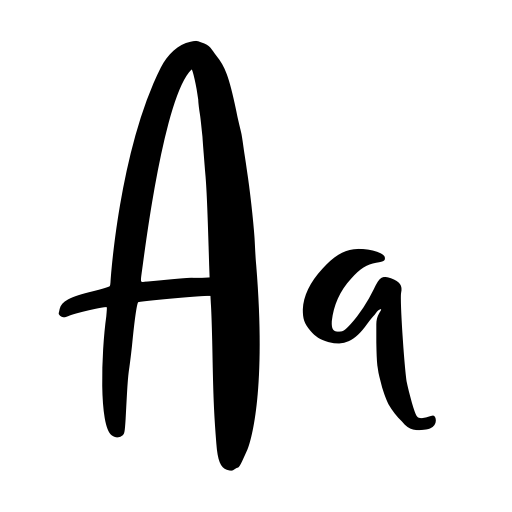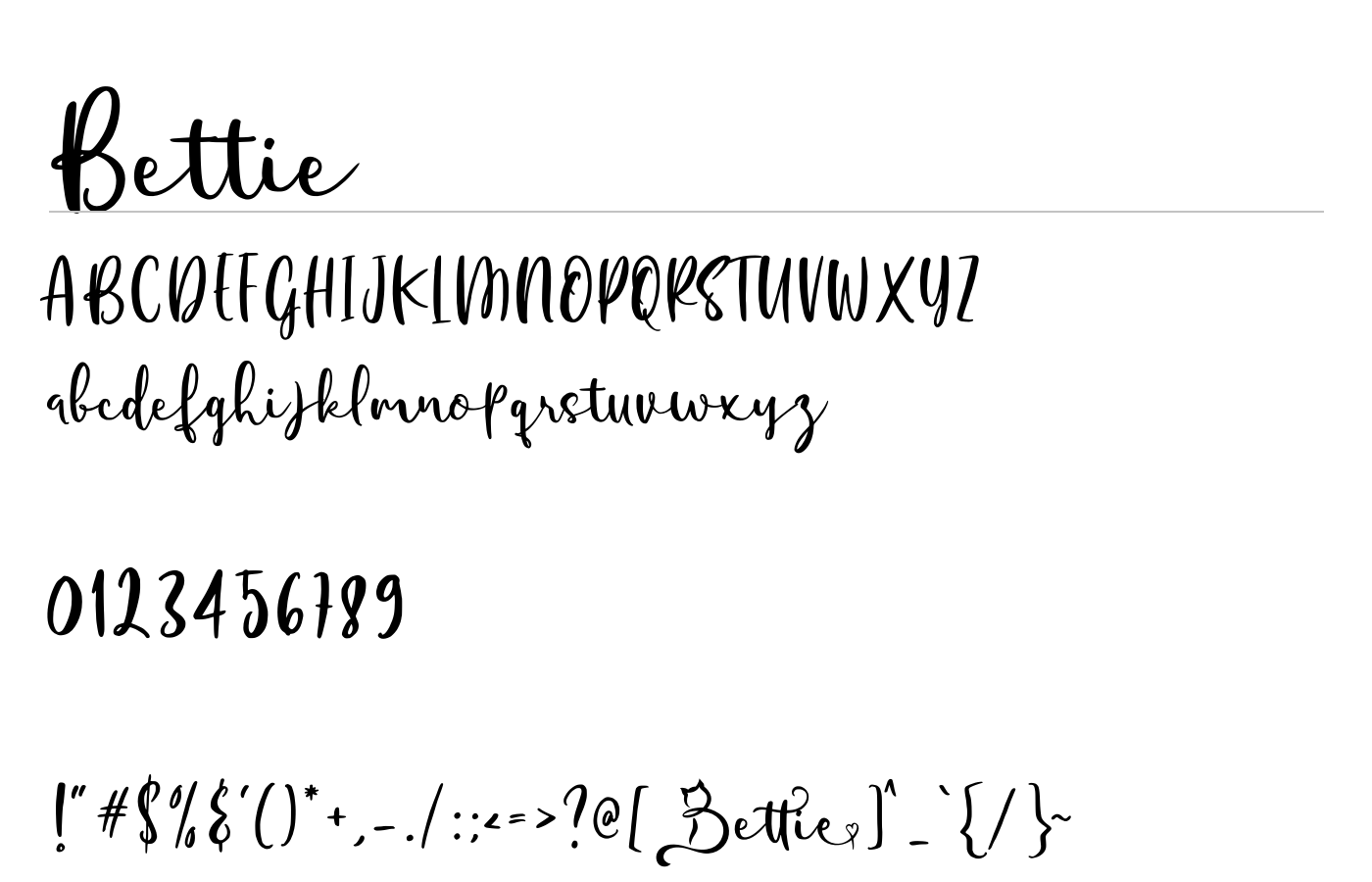
Bettie Font is a playful and elegant script typeface with a friendly, handwritten feel. Its smooth, flowing strokes and moderate contrast make it perfect for adding a personal and creative touch to designs, ideal for invitations, branding, and stylish headlines. This font's charming character thrives in projects that want to convey warmth and creativity with a modern, casual flair.
Bettie Font
About Bettie Font
| Font family | Bettie Font |
| Designer | Muhammad Nur Alamsyah |